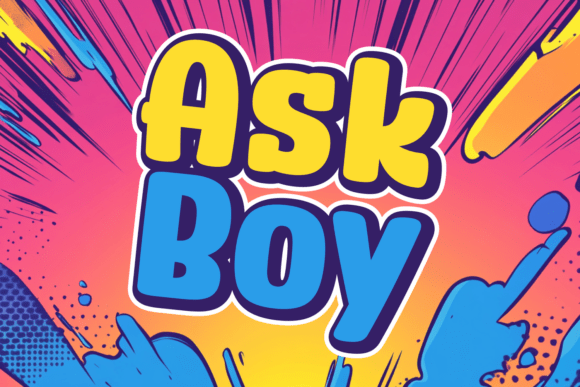
Ask Boy Font: A Masterpiece of Bold Originality and Whimsical Creativity
In the world of typography, fonts play a crucial role in conveying messages, expressing emotions, and creating a lasting impression. Among the numerous fonts available, the Ask Boy Font stands out for its bold originality and whimsical creativity. This hand-drawn masterpiece has captured the hearts of designers and typography enthusiasts alike with its authentic, clean, and unique aesthetic.
Presenting the Ask Boy Font
The Ask Boy Font is a product of meticulous craftsmanship, boasting a smooth and rounded design that exudes a sense of sophistication and elegance. This bold display font seamlessly blends vintage charm with modern refinement, making it an ideal selection for a diverse range of uses. Whether you’re designing a logo, creating a poster, or crafting a website, the Ask Boy Font is sure to make a statement.
Key Features of the Ask Boy Font
- Hand-drawn design: The Ask Boy Font is a carefully crafted, hand-drawn masterpiece that showcases a high level of attention to detail and precision.
- Smooth and rounded aesthetic: The font’s smooth and rounded design gives it a unique and refined look that sets it apart from other fonts.
- Vintage charm with modern sophistication: The Ask Boy Font successfully blends vintage charm with modern elegance, making it suitable for a wide range of applications.
- Authentic and clean look: The font’s authentic and clean design ensures that it remains legible and easy to read, even at smaller font sizes.
- Unique and bold personality: The Ask Boy Font has a bold and unique personality that is sure to make a lasting impression on your audience.
Exploring the Versatility of the Ask Boy Font
The Ask Boy Font is an incredibly versatile font that can be used in a variety of applications. Here are some ideas to get you started:
- Logo design: The font’s bold and unique personality makes it an excellent choice for logo design. Use it to create a memorable brand identity that stands out from the crowd.
- Poster design: The Ask Boy Font is perfect for creating eye-catching posters that grab attention. Its vintage charm and modern sophistication make it suitable for a wide range of themes and topics.
- Web design: Use the Ask Boy Font to add a touch of elegance and sophistication to your website. Its clean and legible design ensures that it remains easy to read, even on smaller screens.
- Social media graphics: The font’s bold and unique personality makes it an excellent choice for social media graphics. Use it to create eye-catching posts and stories that engage your audience.
- Packaging design: The Ask Boy Font can add a touch of whimsy and creativity to your packaging design. Use it to create eye-catching labels and packaging that stands out on store shelves.
Tips for Using the Ask Boy Font Effectively
To get the most out of the Ask Boy Font, here are some tips to keep in mind:
- Use it sparingly: The Ask Boy Font is a bold and attention-grabbing font. Use it sparingly to avoid overwhelming your audience.
- Pair it with complementary fonts: The Ask Boy Font pairs well with a variety of fonts. Experiment with different combinations to find the perfect match for your design.
- Experiment with font sizes: The Ask Boy Font remains legible at smaller font sizes. Experiment with different font sizes to find the perfect balance for your design.
- Use it consistently: To create a cohesive brand identity, use the Ask Boy Font consistently across all your design materials.
In conclusion, the Ask Boy Font is a masterpiece of bold originality and whimsical creativity. Its smooth and rounded design, vintage charm, and modern sophistication make it an ideal selection for a diverse range of uses. With its versatility, unique personality, and clean aesthetic, this font is sure to make a lasting impression on your audience. Whether you’re a designer, typography enthusiast, or simply looking for a font that stands out, the Ask Boy Font is an excellent choice.